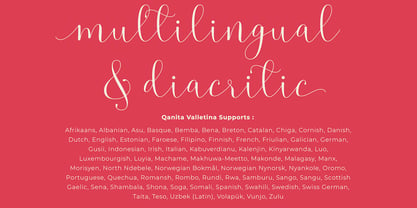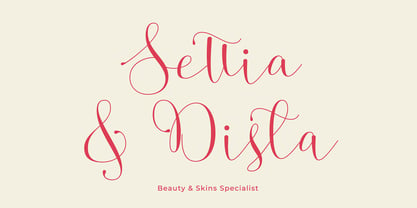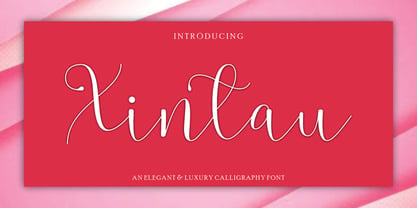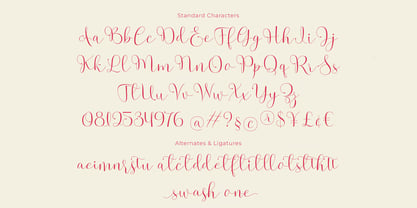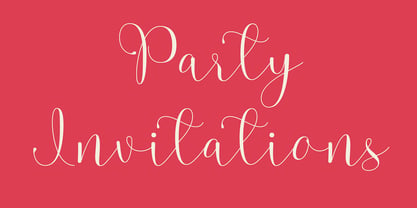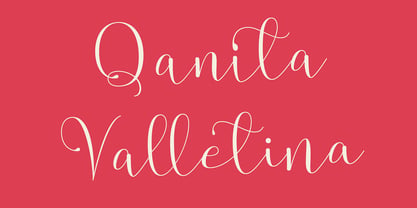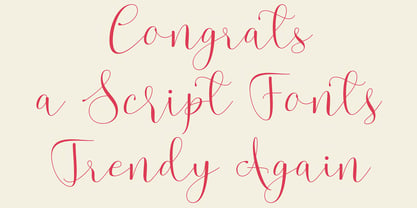
Xintau
by Gian Studio
The Xintau Font Family was designed by Yusliana M Isa and published by Gian Studio. Xintau contains 1 styles. More about this family
“Xintau” is a font designed in a handwritten style, often characterized by flowing strokes and a casual appearance. It usually mimics the look of cursive handwriting, with varying stroke widths and letter shapes to create a natural, organic feel. Fonts may feature decorative elements such as swashes or straps to enhance aesthetic appeal.
Xintau Alive can be used for a variety of design purposes, including invitations, signage, branding, and more, that require a personal and expressive touch.
Designers: Yusliana M Isa
Foundry: Gian Studio